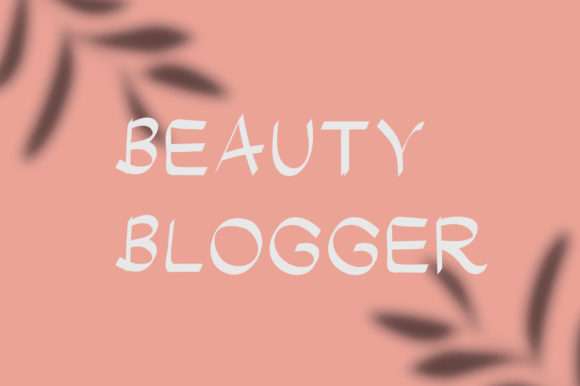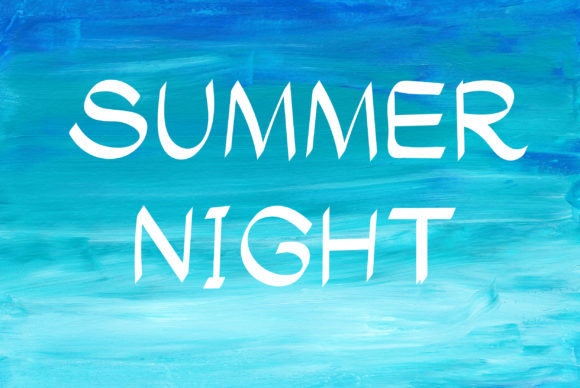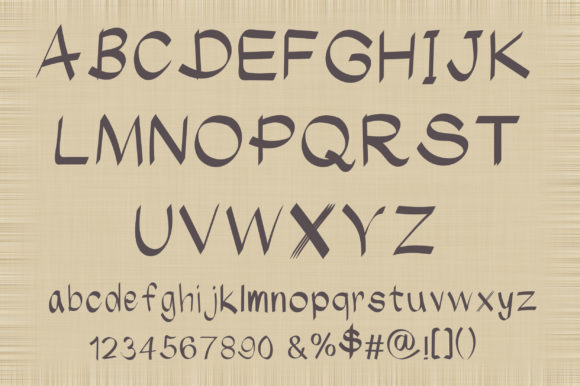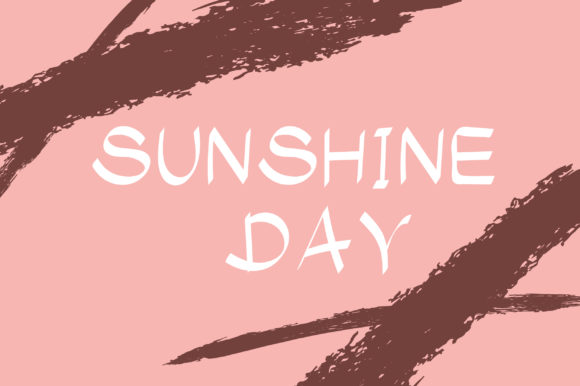
Lucky Day Font
Lucky Day is a modern handwritten font with a cute vibe. It’s the perfect font for a wide range of products such as banners, social media, advertising, covers, cards and more.